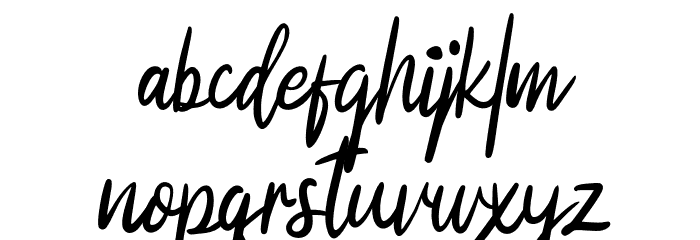
MotibeCebiksFREE Font
This font features a lively and energetic handwritten style, characterized by its fluid and dynamic strokes. The uppercase letters are tall and slightly narrow, with a playful tilt that adds a sense of movement. The lowercase letters maintain a consistent flow, enhancing the font's casual and approachable feel. The overall design is informal yet stylish, making it suitable for projects that require a personal touch. The font's unique character is further emphasized by its varying line thickness, which adds depth and interest to the text.
A lively handwritten font with dynamic strokes and playful tilt.
- Font: MotibeCebiksFREE
- Proposed Projects: Ideal for greeting cards, invitations, personal branding, and social media graphics.
- Category: Handwritten
- Overall Style: Casual
- Use Case: Logos, Headlines, Invitations